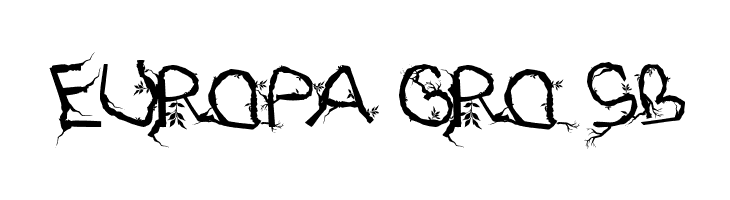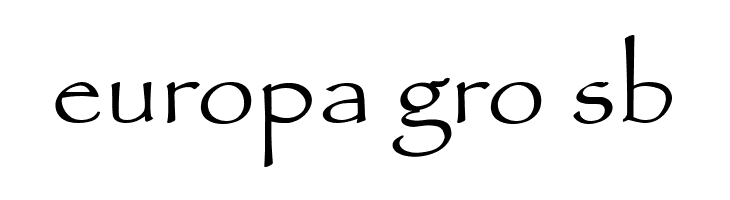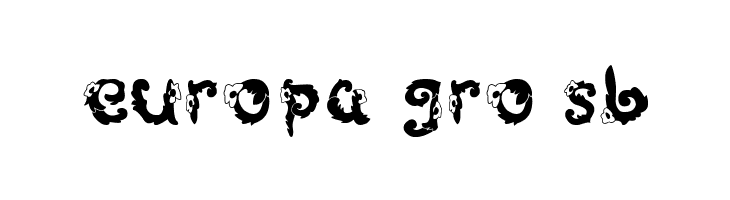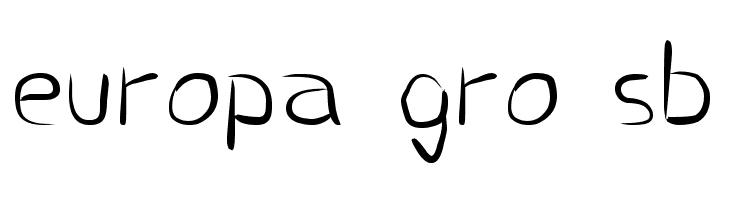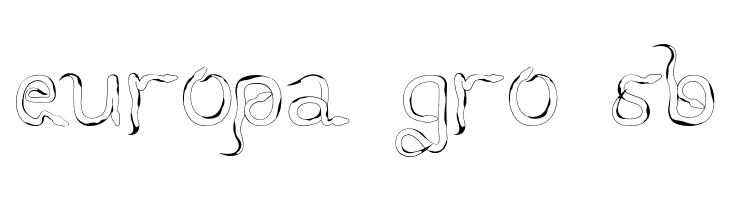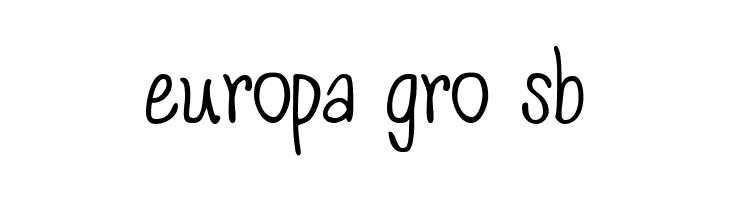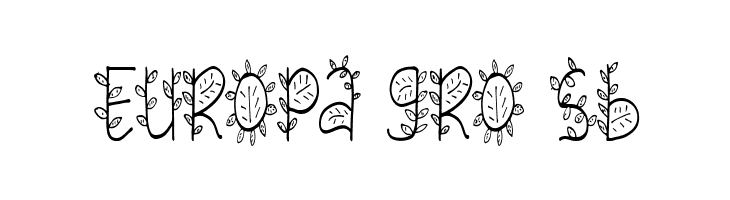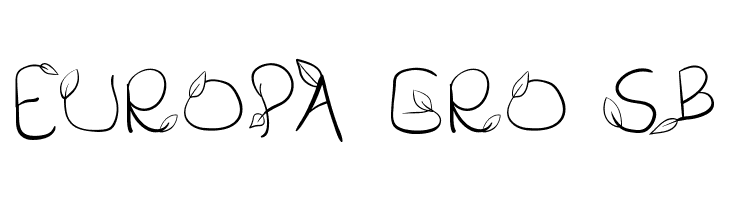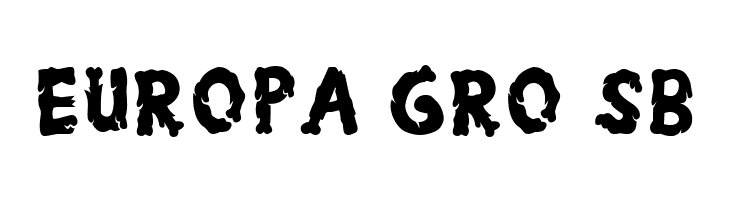
An organic, vine-like decorative font with intricate details.
A hand-drawn font with an organic, textured appearance and uneven strokes.
A decorative font with organic, swirling patterns and a whimsical style.
A dynamic and expressive handwritten font with fluid strokes and organic shapes.
A bold, hand-painted style font with an organic, textured appearance.
A playful, casual handwritten font with smooth, organic strokes.
A decorative font with leaf and vine motifs, offering a whimsical and organic style.
A whimsical, leaf-inspired font with elegant curves and natural motifs.
A bold, playful font with irregular, organic shapes and a hand-drawn appearance.